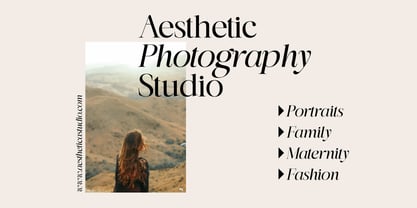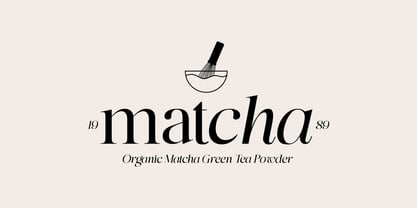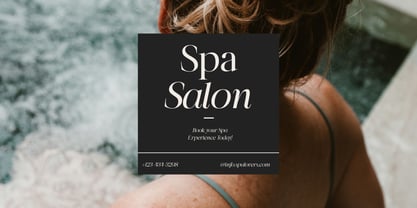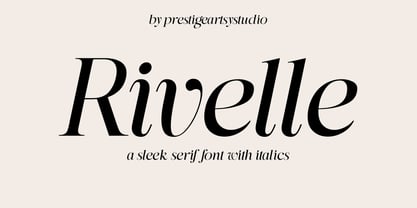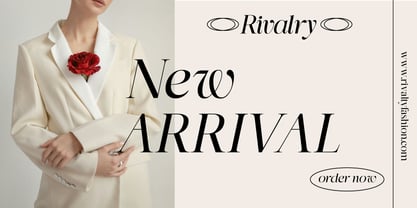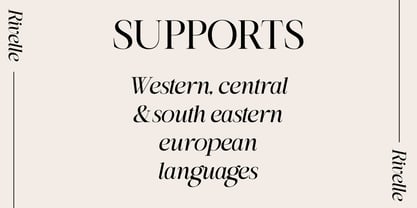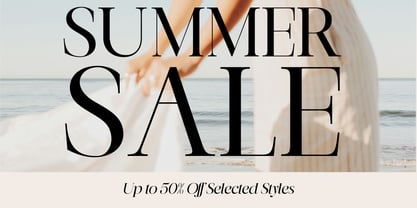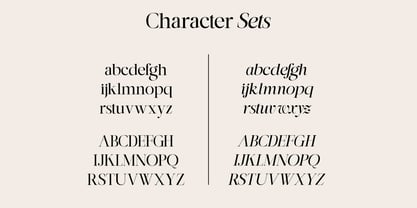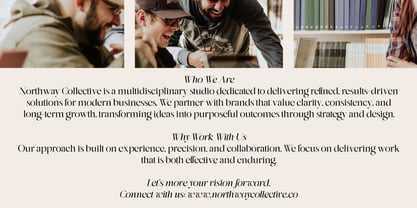
Rivelle
La familia tipográfica Rivelle fue diseñada por Zak M y publicada por Prestige Artsy Studio. Rivelle contiene 2 estilos y opciones de paquete familiar. Más información sobre esta familia
Rivelle is a sleek and sophisticated serif typeface crafted for modern brands that prioritize elegance, clarity, and timeless style. Featuring graceful curves, sharp contrast, and expressive italics, Rivelle provides a refined editorial aesthetic that excels in both print and digital design. Inspired by contemporary fashion magazines and luxury branding, Rivelle harmonizes classic serif foundations with a modern, confident voice. Its italic style introduces fluidity and emphasis, making it perfect for headlines, quotes, and premium layouts. This versatile font family is ideal for enhancing brand identity, creating impactful logos, and designing visually stunning editorial content.